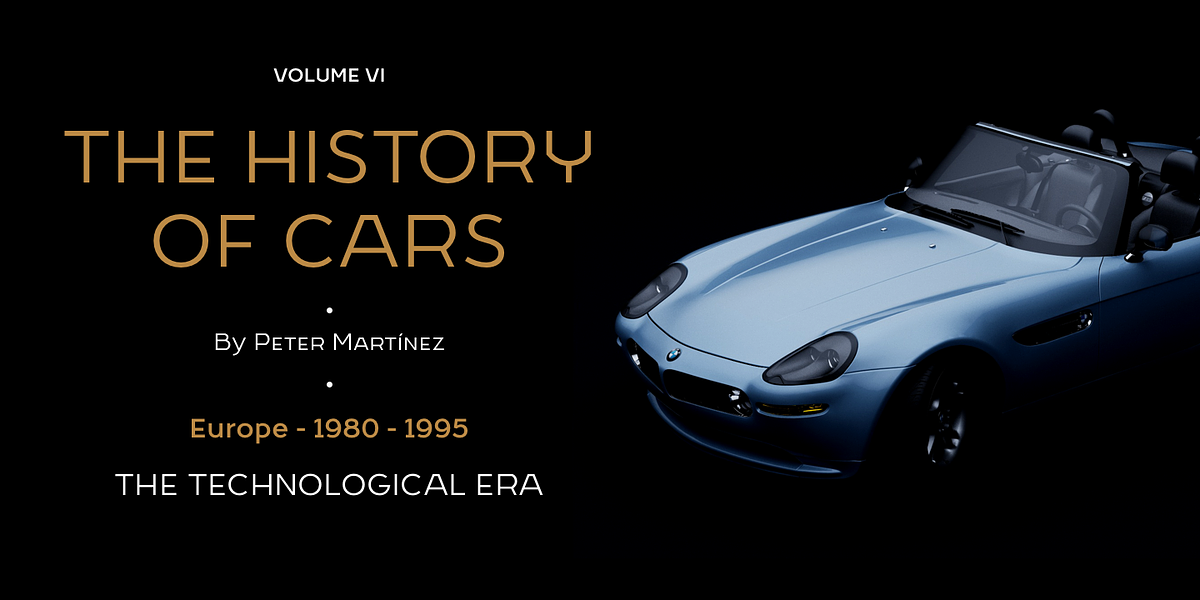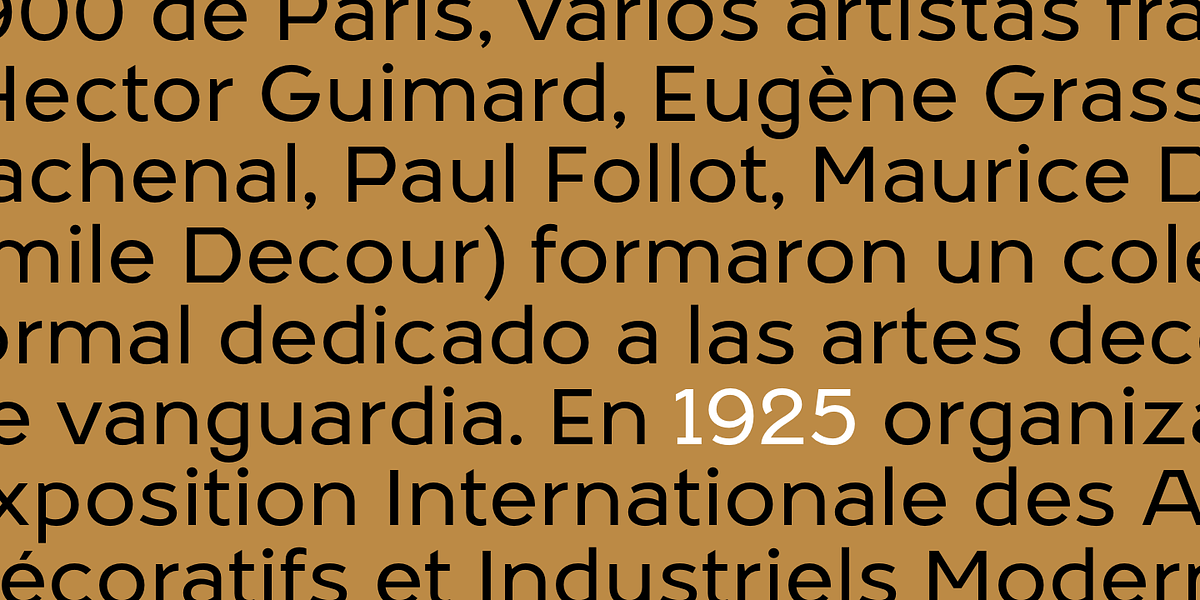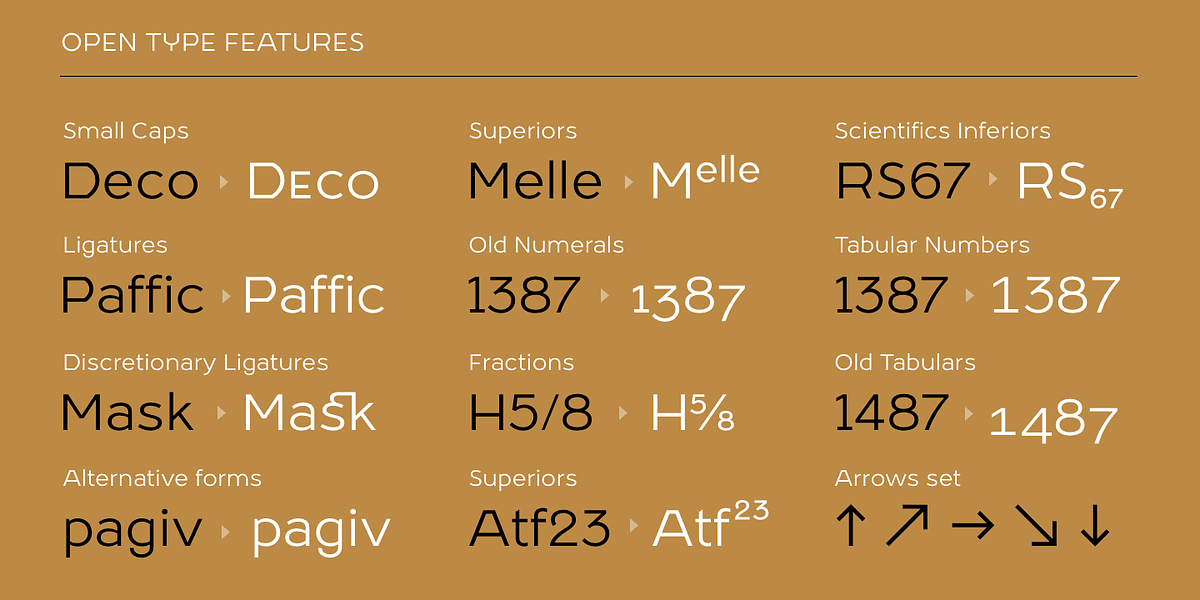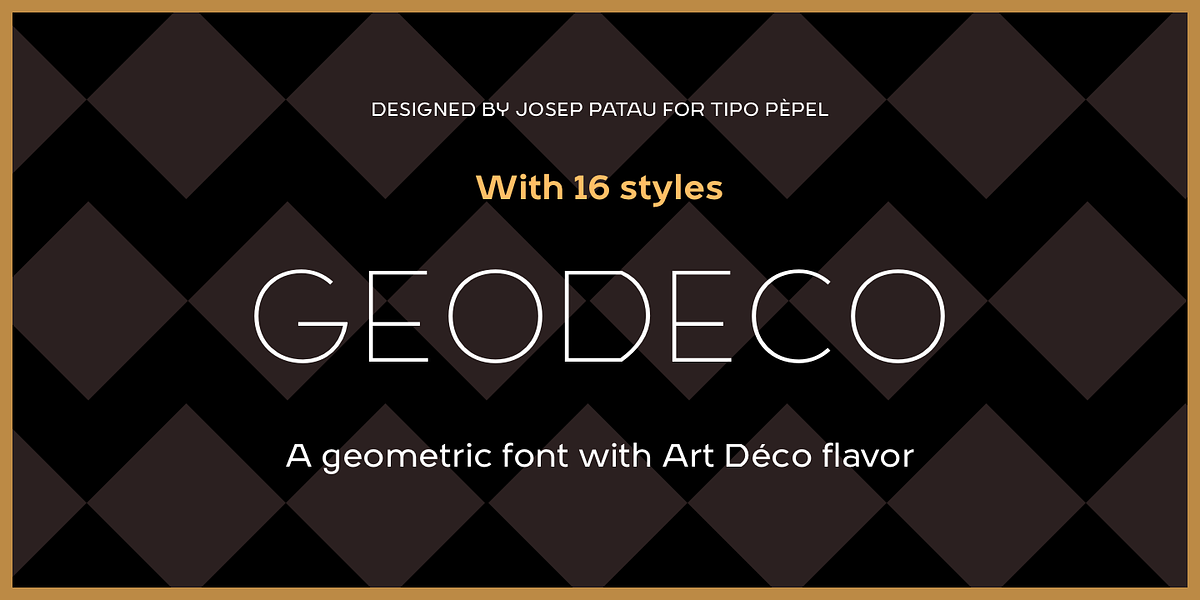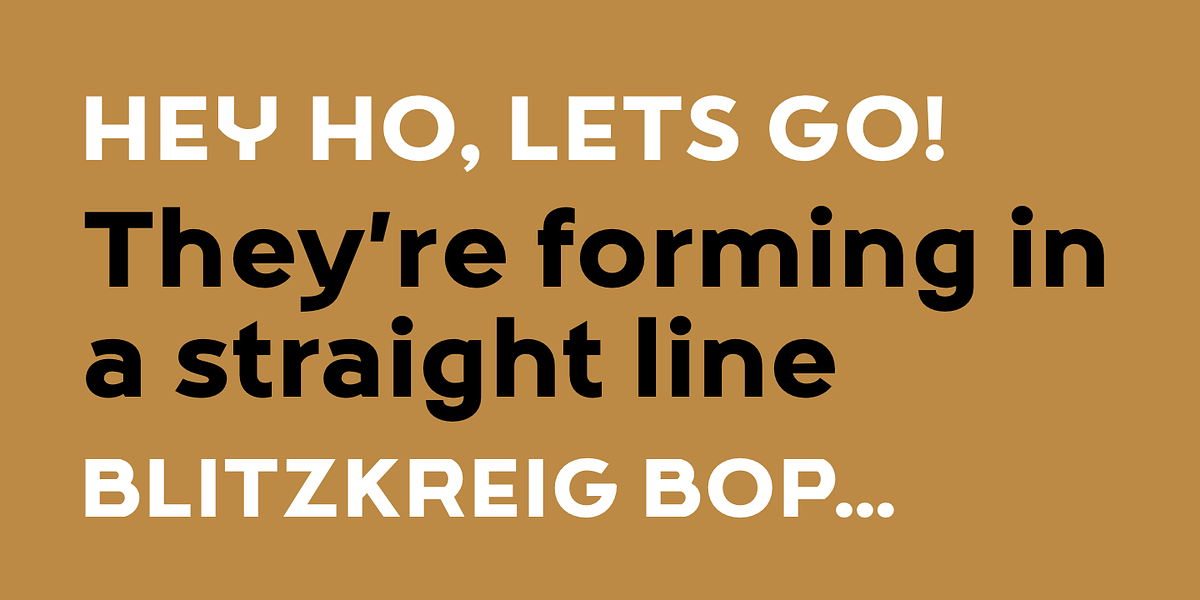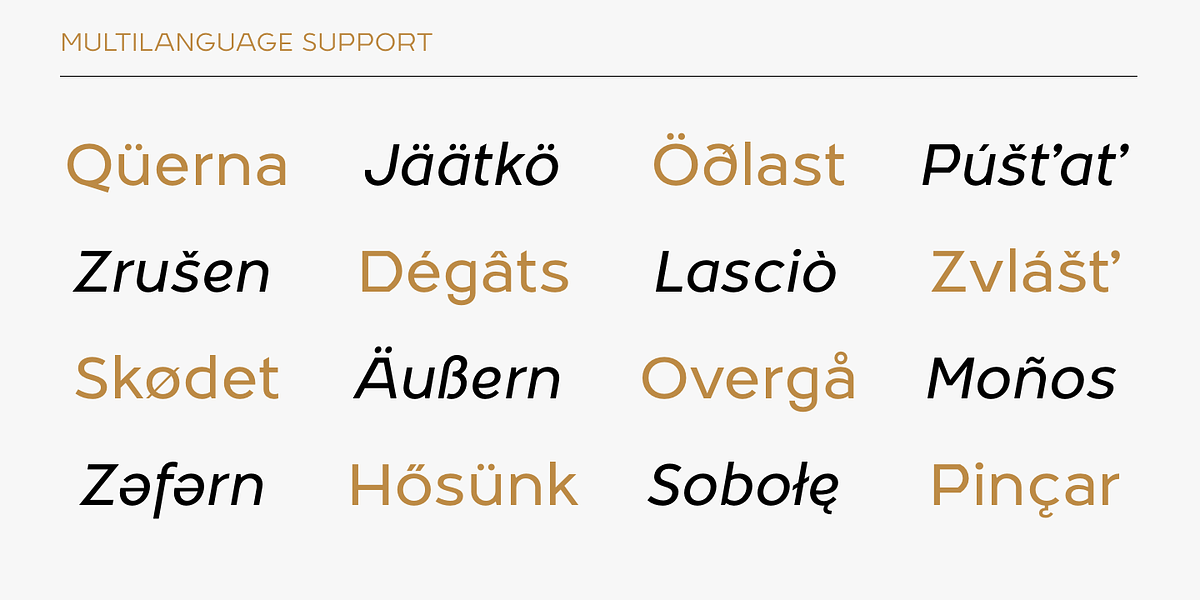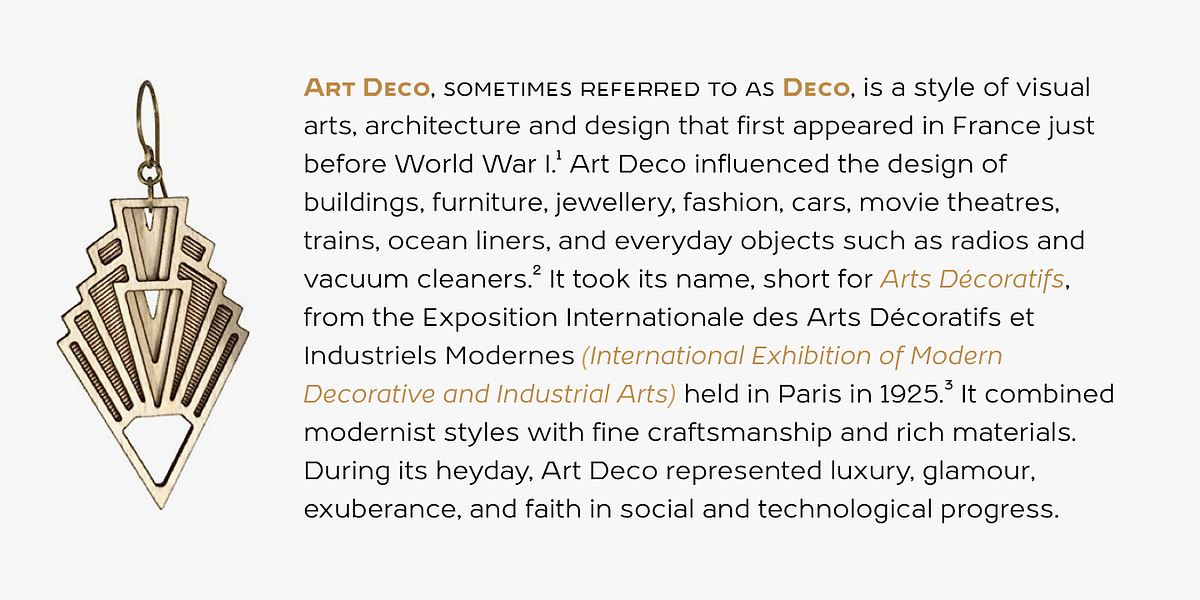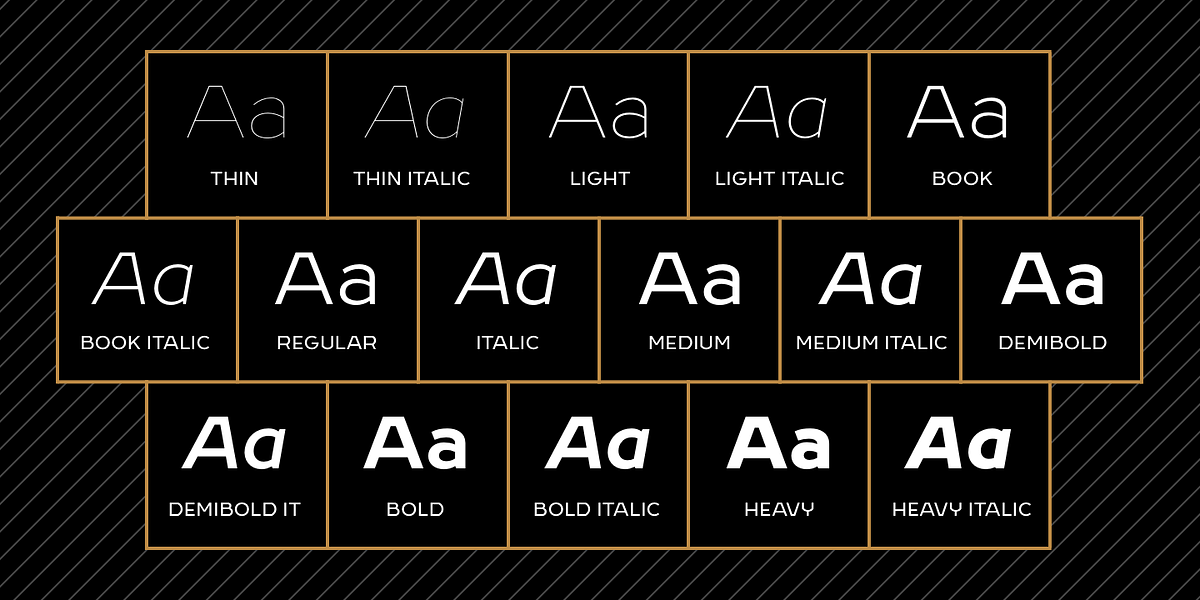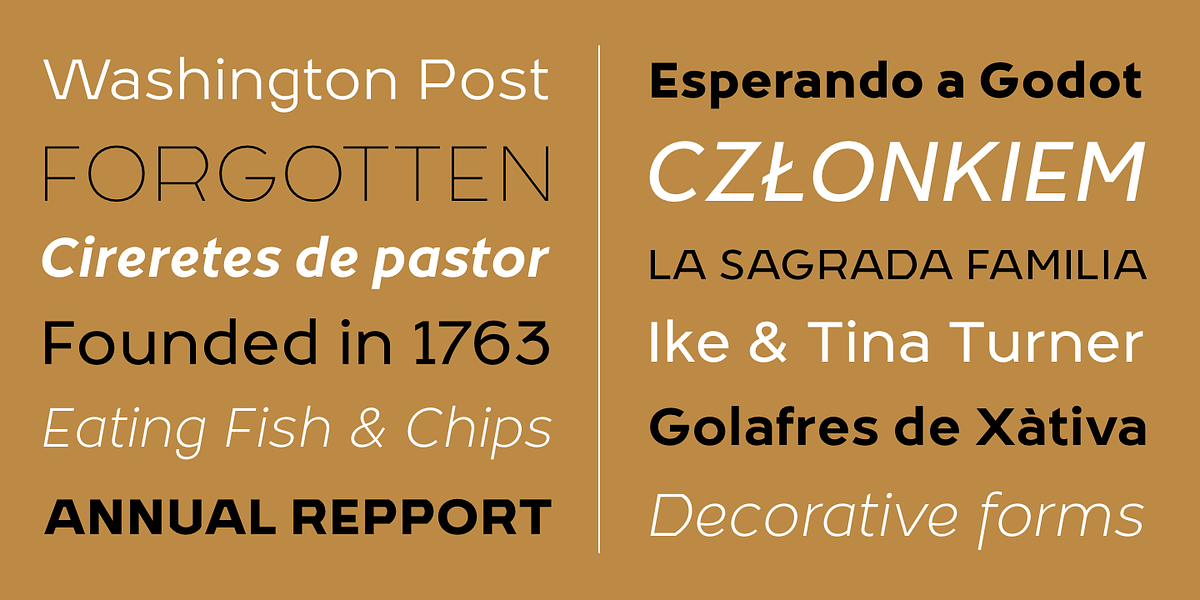
GeoDeco
Geodeco is a geometric sans-serif typeface inspired by the Art Deco movement of the early 20th century. It features strong visual contrast between uppercase and lowercase letters, with rounded lowercase shapes and angular uppercase forms. This combination creates a unique and modern aesthetic. The font prioritizes legibility with generous internal whitespace, making it well-suited for both print and digital applications, particularly headlines, branding, and signage. Geodeco offers extensive multilingual support and includes various OpenType features.